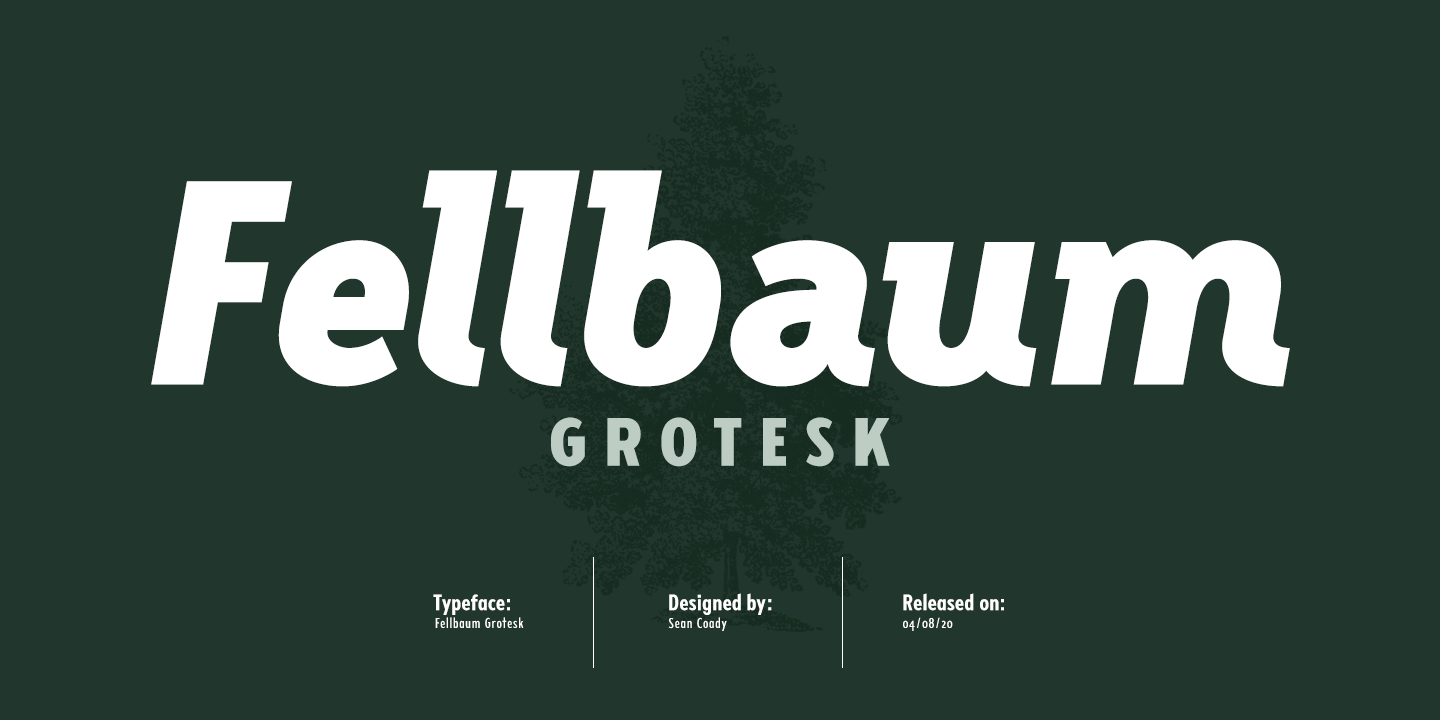
The Fellbaum Grotesk Font Free Download is an exceptionally modern and robust sans-serif typeface, making it an excellent choice for a broad spectrum of design applications that demand clarity, professionalism, and a contemporary edge. This adaptable font is perfectly suited for corporate branding, web and UI design, mobile applications, editorial layouts for digital and print, packaging design, and digital advertising. Imagine it providing the crisp, efficient text for a cutting-edge tech startup's website, ensuring effortless readability in a complex data visualization, or giving a sleek, minimalist aesthetic to a new gadget's marketing campaign. Its straightforward forms and exceptional legibility ensure your message is communicated effectively and efficiently across all platforms.
What makes Fellbaum Grotesk Font truly exciting is its ability to strike a perfect balance between neutrality and a distinct, modern character. It's not just another workhorse sans-serif; it possesses a subtle refinement and a meticulously crafted structure that allows it to integrate seamlessly into diverse design contexts while maintaining a polished and contemporary presence. Its robust construction ensures it performs beautifully in both large display sizes and small body text, making it an incredibly reliable choice for any project. Designers will appreciate its understated sophistication and how it provides a solid yet stylish foundation for any visual communication, allowing the content to truly shine.
The Fellbaum Grotesk Font family typically offers an expansive range of weights and styles, making it exceptionally flexible for building sophisticated typographical hierarchies and nuanced visual expressions. You can often find a comprehensive spectrum of variations, including Thin, Light, Regular, Medium, SemiBold, Bold, ExtraBold, and Black, providing extensive control over visual emphasis and typographic texture. Most comprehensive versions also include corresponding Italic styles, further enhancing its utility for varied design needs, from subtle emphasis to dynamic headlines. These extensive options ensure that the Fellbaum Grotesk Font Free Download is an invaluable asset for designers seeking a dependable, high-quality, and aesthetically pleasing typeface for virtually any design challenge.